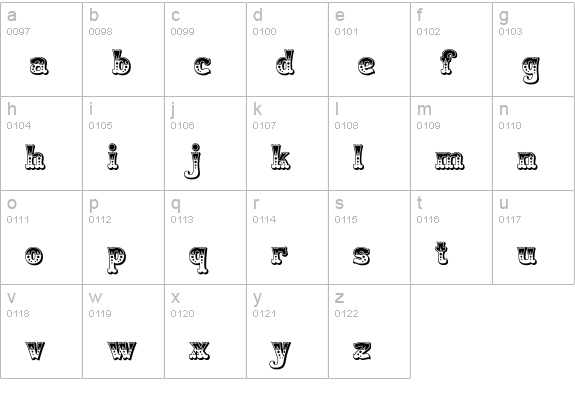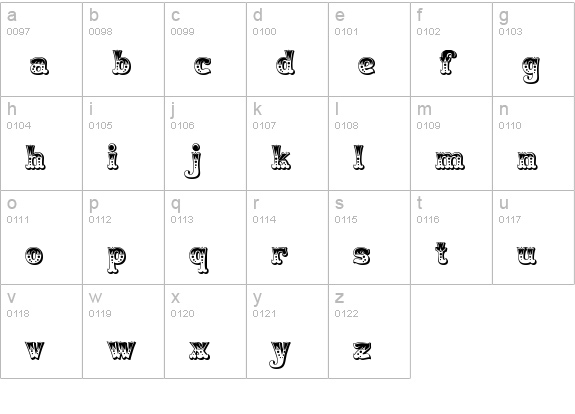
Rodeo Clown font is a fun and playful typeface that is perfect for adding a touch of whimsy to your designs. With its bold, hand-drawn style, this font is sure to make a statement and capture attention. Whether you're creating posters, invitations, or branding materials, Rodeo Clown font will bring a unique flair to your projects. Best of all, Rodeo Clown font is available for free download at FontsMarket.com, making it easily accessible for designers and creatives looking to add a touch of personality to their work. Don't miss out on this charming and versatile font that will bring a smile to your audience's face.